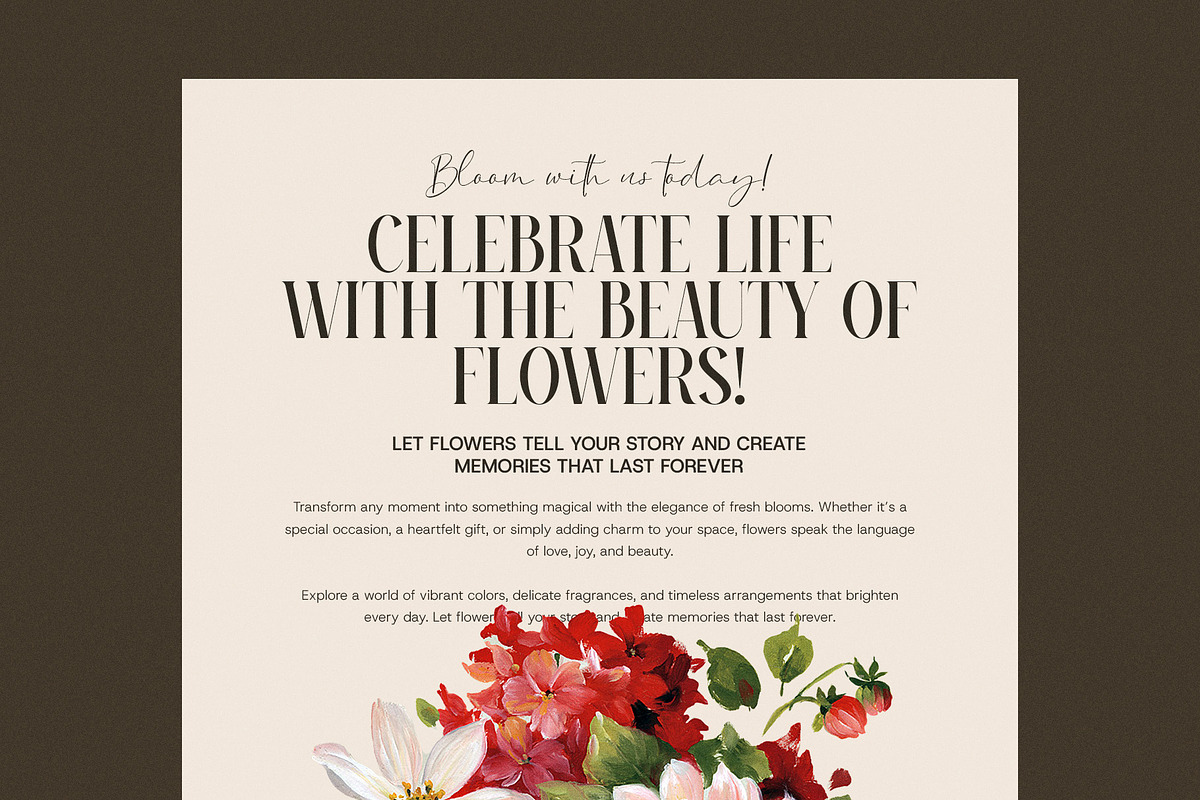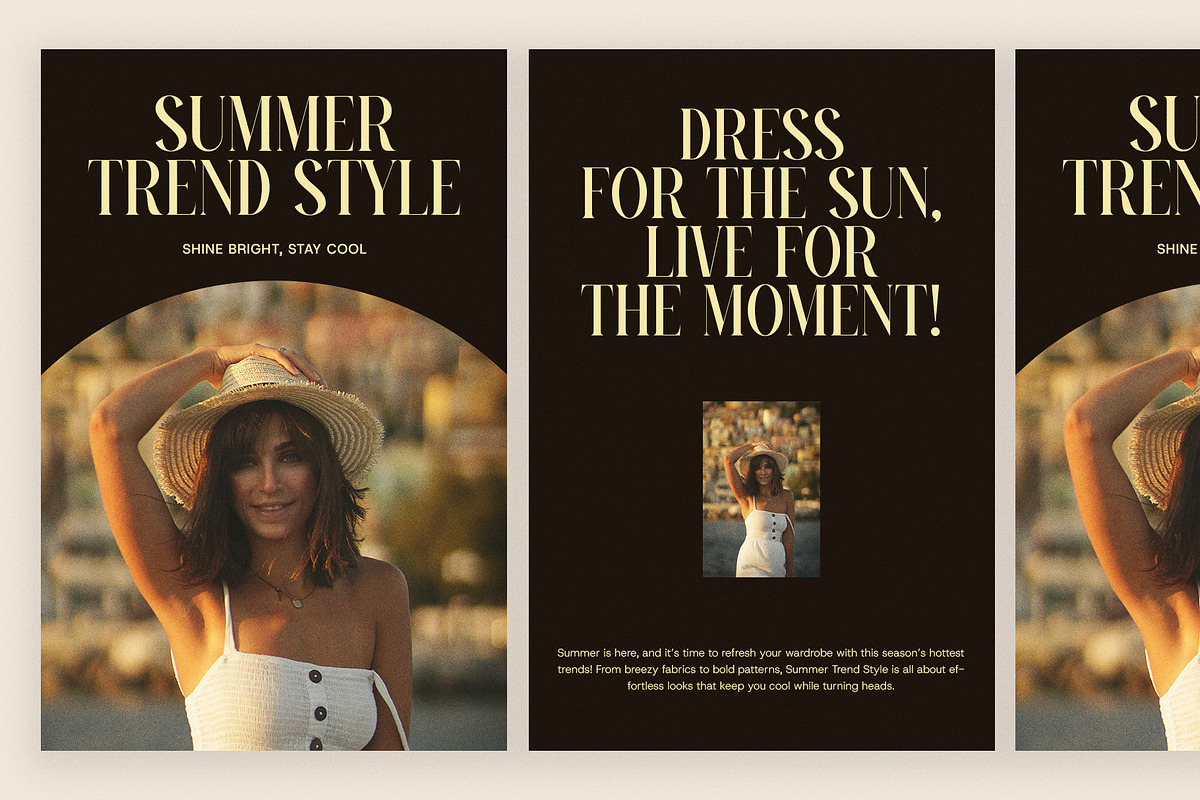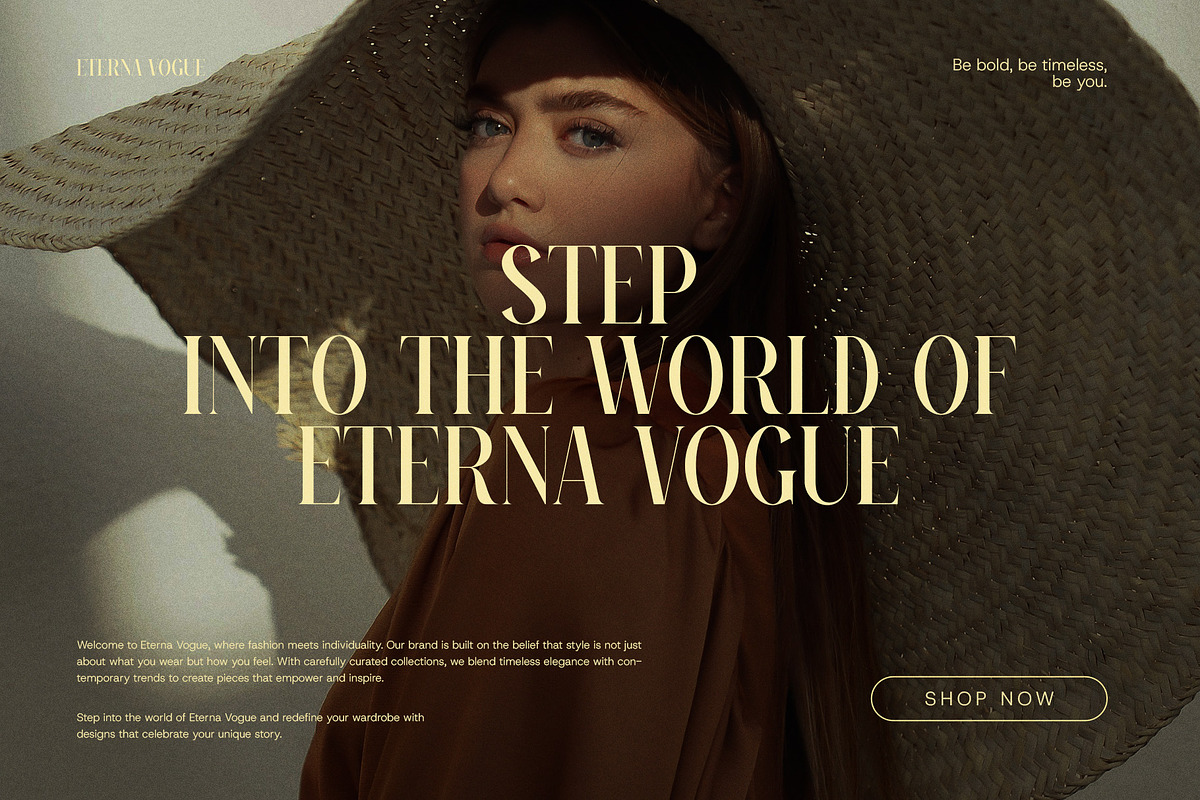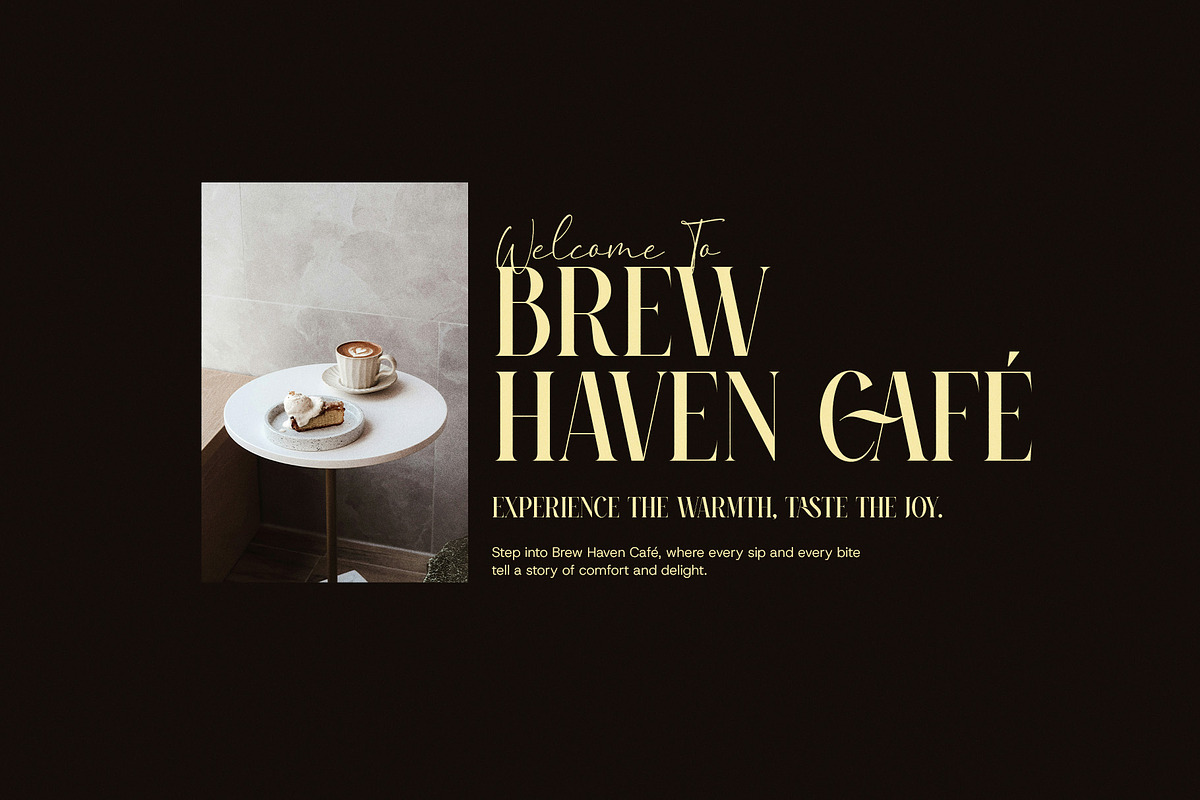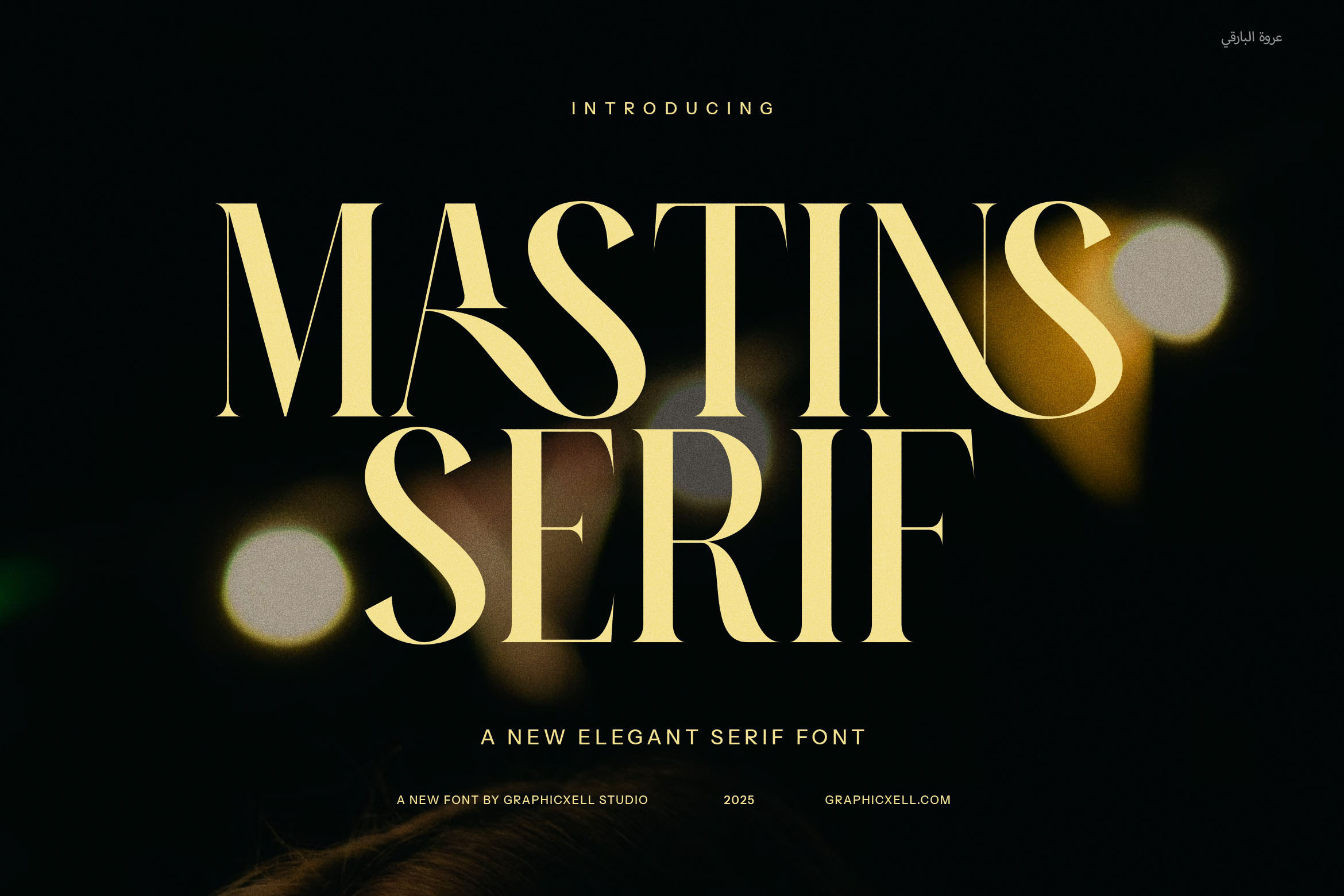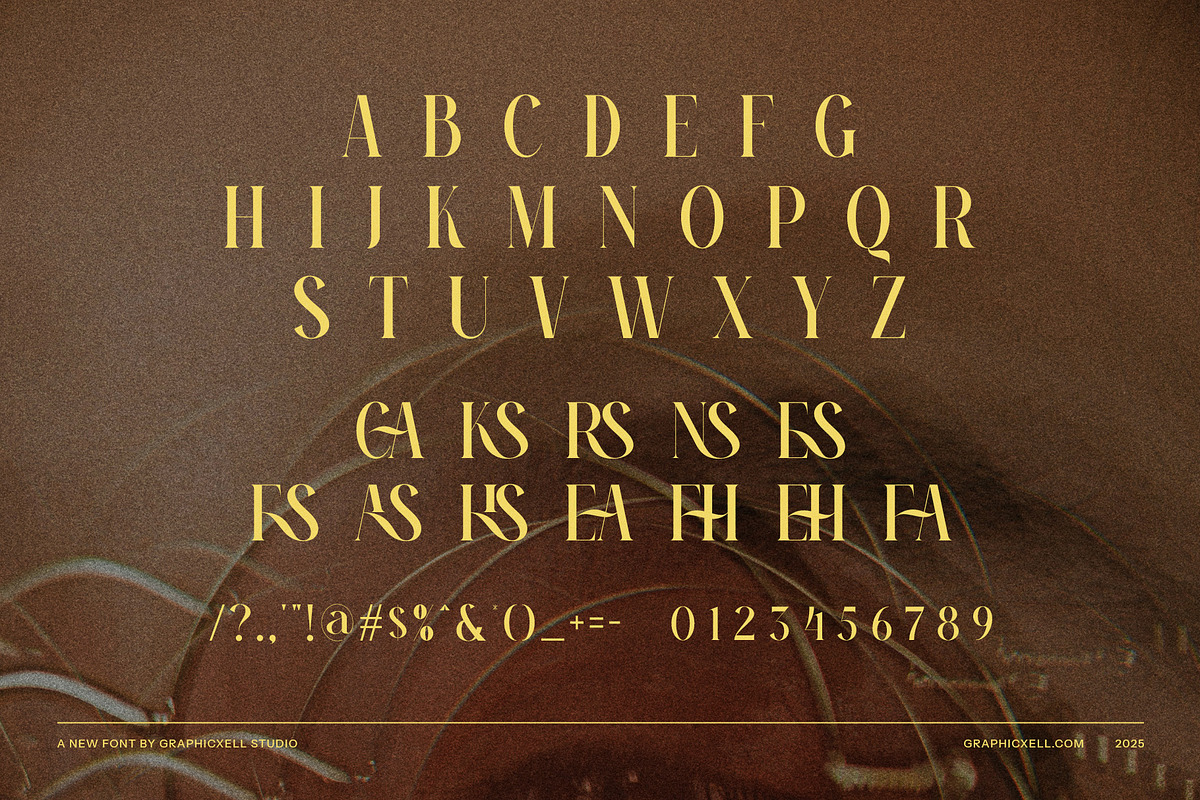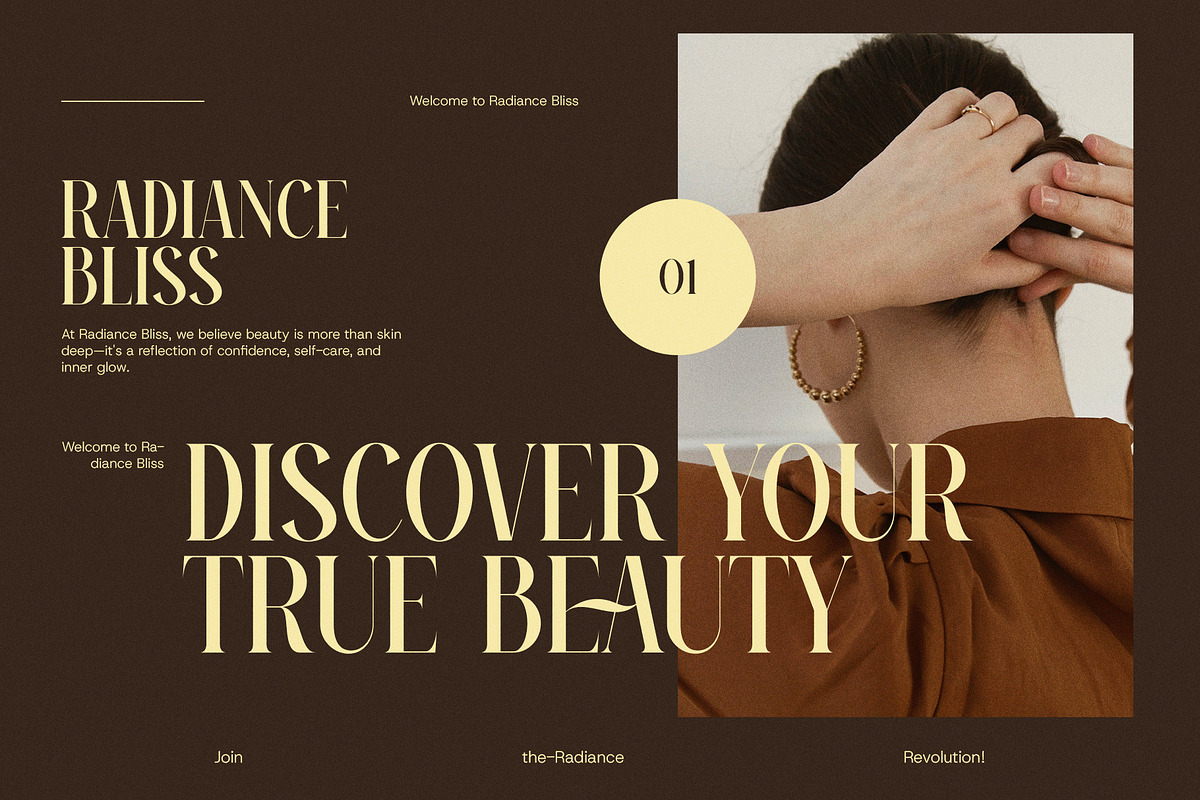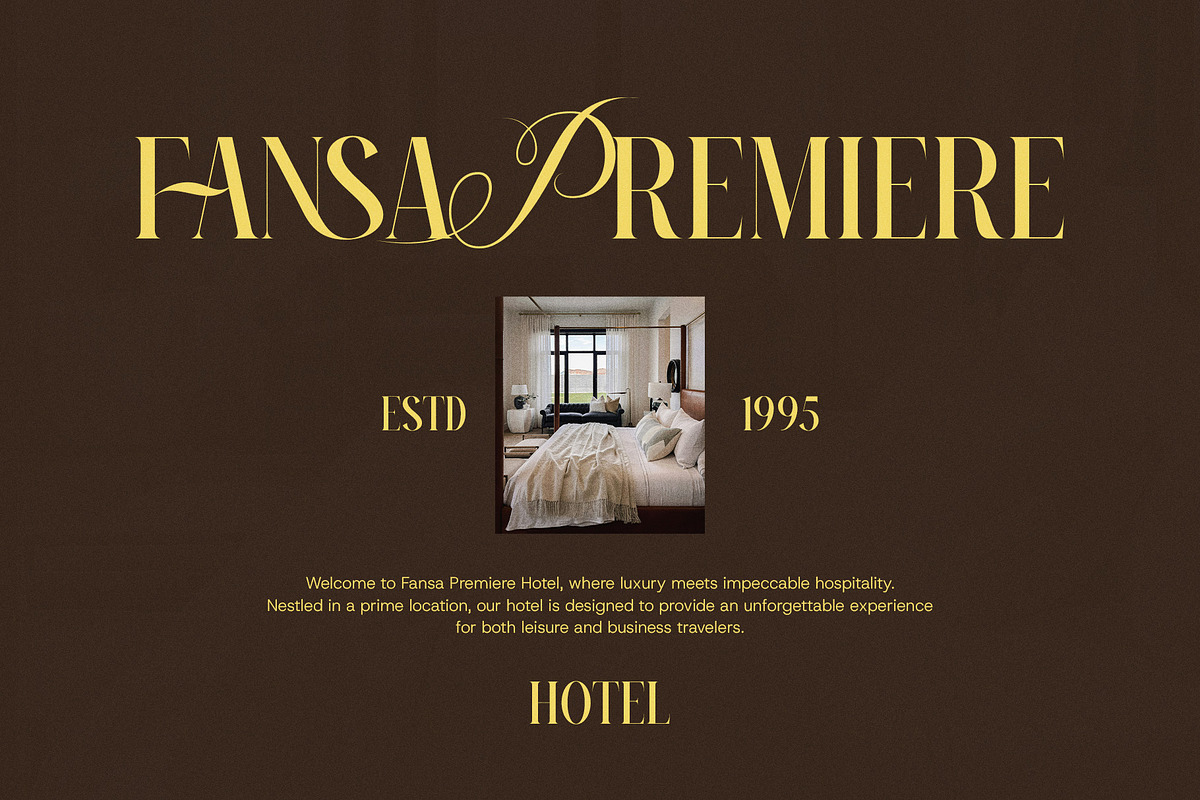
Mastins Elegant Serif Font
Mastins Elegant Serif is a refined and modern typeface designed to elevate any creative project with sophistication and style. With its graceful letterforms, high contrast strokes, and beautifully crafted ligatures, Mastins blends classic elegance with a contemporary touch, making it perfect for luxury branding, editorial designs, and high-end marketing materials.
What sets Mastins apart is its exquisite alternates and ligatures, adding a bespoke and artistic flair to typography. Whether designing for fashion labels, boutique packaging, or upscale websites, this font exudes exclusivity and charm. Its carefully balanced proportions and smooth, flowing curves create a seamless reading experience, making it equally effective for impactful headlines or refined body text.
Mastins Elegant Serif is incredibly versatile, fitting seamlessly into various design aesthetics, from minimalistic layouts to bold statement pieces. It’s an excellent choice for logos, magazines, advertisements, and product packaging that require a timeless yet contemporary appeal. Whether paired with a modern sans-serif for contrast or used as the centerpiece of a design, Mastins delivers a polished and sophisticated look.
If you’re looking for a font that embodies grace, luxury, and modern refinement, Mastins Elegant Serif is the perfect choice. Designed to make a lasting impression, it transforms any project into a masterpiece of elegance and creativity.